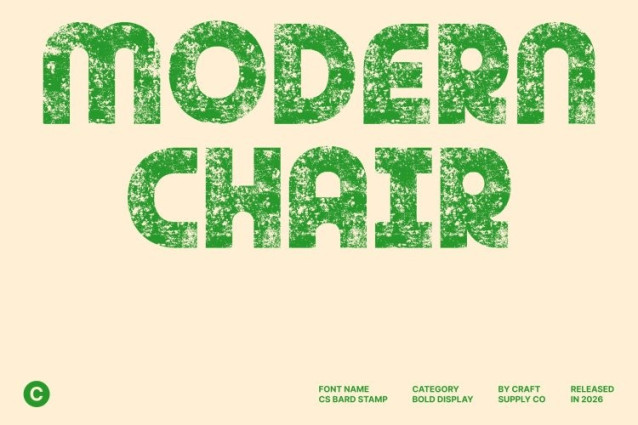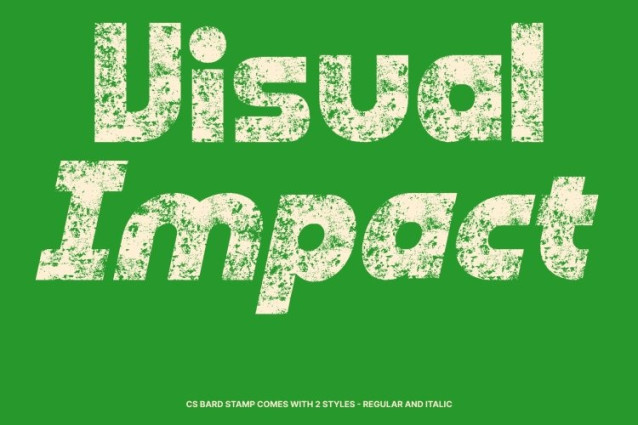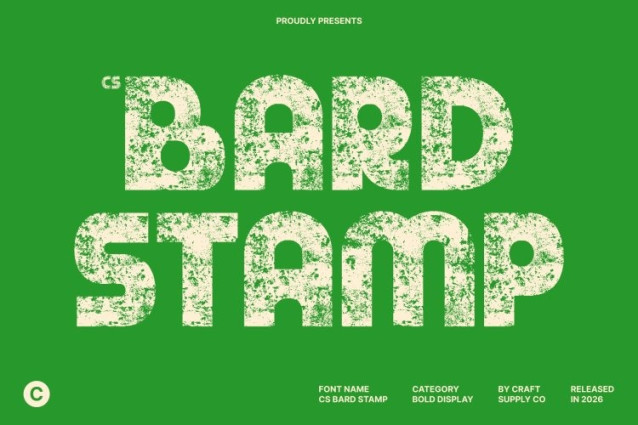
CS Bard Stamp Font
CS Bard Stamp Font This is a bold, chunky display font built to express confidence, fun, and strong visual impact. Its thick strokes and solid geometric forms create a powerful modern presence, while the stamped texture introduces an organic, handcrafted feel. This combination makes the font stand out with character bold, tactile, and visually engaging.
Playful Personality with Quirky Details
Beyond its strong structure, this font features subtle quirky details that add charm and approachability. The playful shapes and stamped imperfections give the font a lively, energetic personality, balancing strength with creativity. It’s ideal for designs that want to feel bold yet friendly, modern yet expressive.
Versatile for Creative and Expressive Design
This font performs beautifully across a wide range of creative applications, from posters, packaging, and branding to social media graphics and editorial highlights. Its clear forms maintain strong readability, while the stamp texture adds depth and visual interest perfect for designs that need personality without sacrificing clarity.
Eye-Catching, Fun, and Memorable
Designed to leave a lasting impression, this font brings modern boldness together with playful charm and vintage-inspired texture. It’s a perfect choice for designers looking to create eye-catching visuals that feel confident, creative, and full of character.